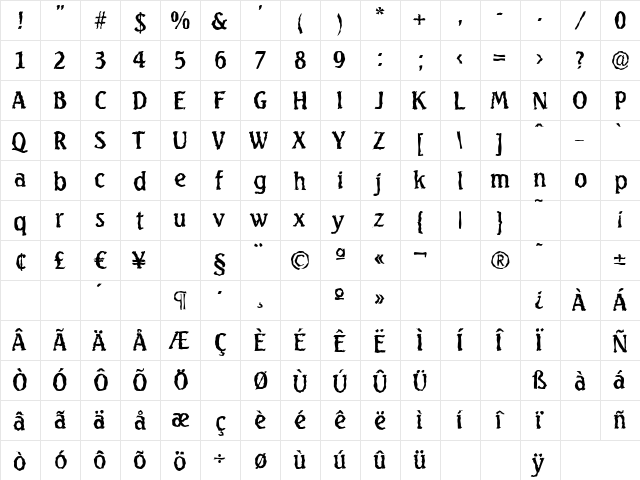
SeagullRandom Regular
Design Context for SeagullRandom Typeface
SeagullRandom is a composed and adaptable typeface that performs quietly and consistently across a wide range of design contexts.